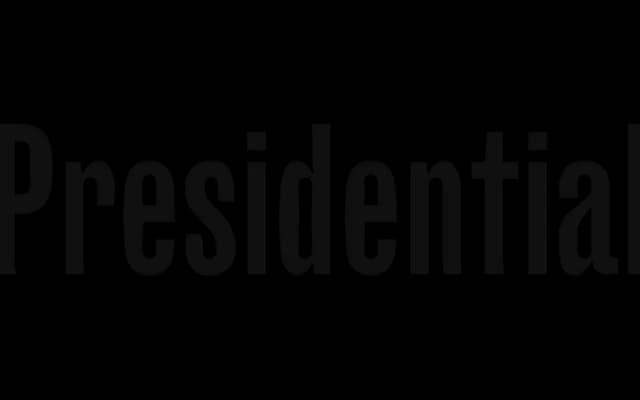
Girott
Radim Pesko · Radim Peško · 2016
A compressed, subtractive sans-serif in two weights, designed by Radim Peško between 2012 and 2016 with Latin and Cyrillic support.
Girott's forms are defined by a subtractive approach, as though shapes have been cut away rather than drawn, resulting in a tightly compressed grotesque suited to headline work. Available in Regular and Bold, the family covers both Latin and Cyrillic scripts. It has been used in headlines for Best of The Atlantic, suggesting an editorial aptitude for display settings.
Described as a subtractive typeface with compressed shapes, placing it within the grotesque sans-serif tradition but with a distinctly geometric, cut-form character. The compression and subtractive construction distinguish it from conventional grotesques.